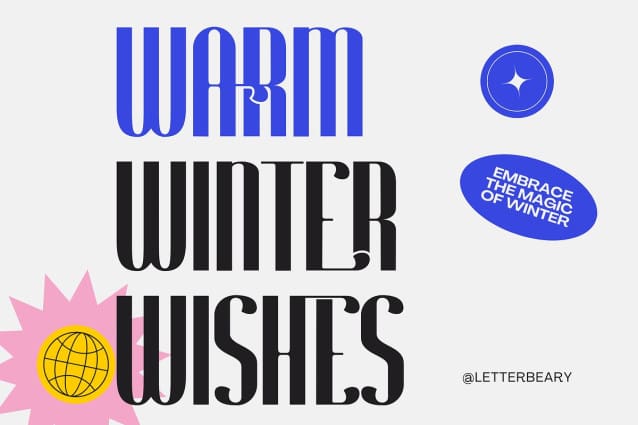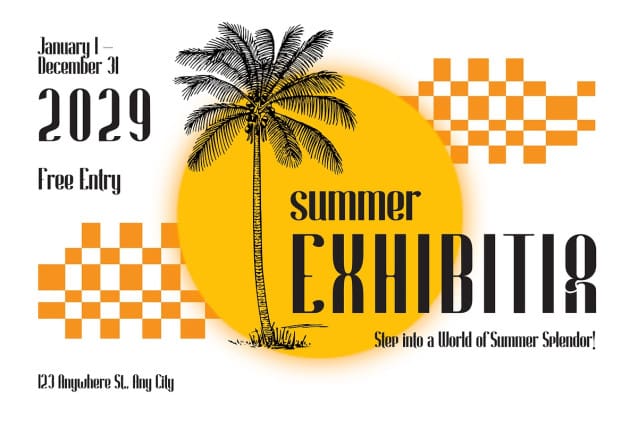
Bath York Font
Bath York Font is a sans serif font that exudes elegance and simplicity in every stroke. Its clean and modern design makes it ideal for various applications, from graphic design to digital typography. The clarity of each letter gives a professional yet approachable impression, making it easy to read and visually appealing.
The charm of Bath York lies in its captivating ligatures, seamlessly connecting letters in an aesthetically pleasing and harmonious manner. Every detail of the ligature is meticulously crafted to provide a smooth and elegant appearance, making this font the perfect choice for projects that require a touch of creativity and style. Bath York is not just a font, but a piece of art that enriches visuals and enhances the quality of your designs.